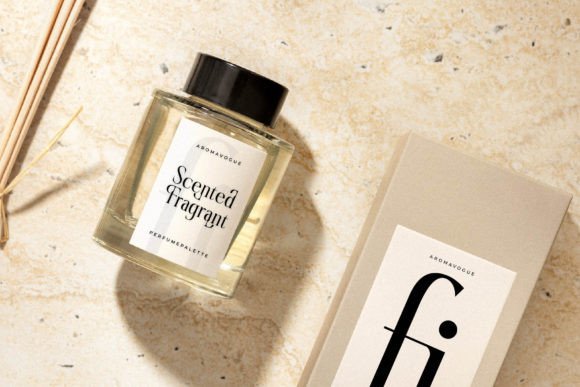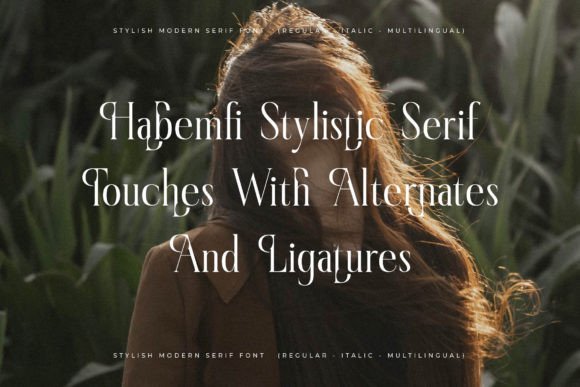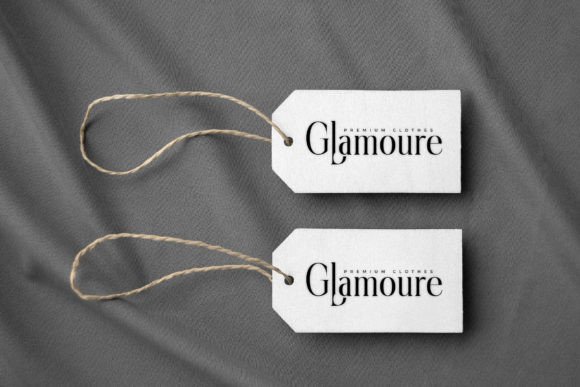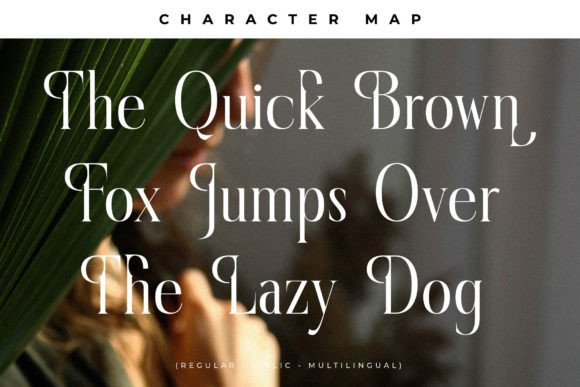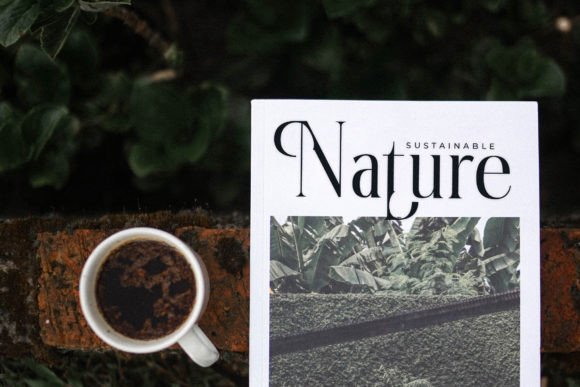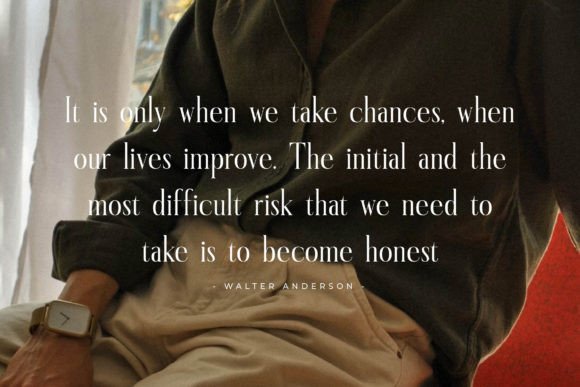
Introduction to Habemfi Font
Do you remember that moment when you stumbled upon the perfect font for your design project? For many designers, it’s a rush of excitement and a sense of accomplishment. But what if you could find a font that not only elevates your creative project but also adds a touch of elegance and luxury? Enter the Habemfi Font, a high-quality serif typeface that is about to become your new go-to design resource.
Whether you’re working on a fashion brand, a magazine, or a book title design, the Habemfi Font is the perfect addition to your design toolkit. With its unique style and modern look, this font is ideal for designers who want to create a high-end feel without sacrificing readability. And the best part? It’s available for free download, making it a valuable asset for any creative project.
Key Features of Habemfi Font
- High-quality font with a transparent background, ideal for creative projects that require a clean and minimalist design.
- Unique design with a modern twist, suitable for a wide range of creative projects, from branding to editorial content.
- High-resolution font, suitable for print and digital applications, including posters, business cards, and website design.
- Perfect design resource for designers, artists, and creatives working on high-quality projects, offering a professional and sleek look.
Honest Review: Habemfi Font
I recently had the chance to work with the Habemfi Font, and I must say it’s been a great addition to my design arsenal. The high quality of this font makes it perfect for any creative project, from brochures to digital displays.
Here are some of the things that I think work well with the Habemfi Font:
- ✨ Versatility: This font can be used in a variety of settings, from modern to traditional designs.
- ✨ High-quality design: The Habemfi Font has a clean and sophisticated look that makes it perfect for any design project.
- ⚠️ Limited customization options: While the Habemfi Font is highly customizable, it would be great to have more options for adjusting the font’s appearance.
- ⚠️ No transparent background: Unfortunately, the Habemfi Font does not have a transparent background, which can make it difficult to use in certain design situations.
Overall, I’m impressed with the Habemfi Font and would definitely recommend it to designers looking for a high-quality font for their creative projects.
Getting the Most Out of Habemfi Font
Experiment with different font sizes, colors, and combinations to create a unique look. Use the font in conjunction with other design elements to add depth and interest to your design.
Habemfi Font is perfect for creative projects such as logo design, branding, and typography-based art. Its high-quality design and transparent background make it a valuable resource for any designer.